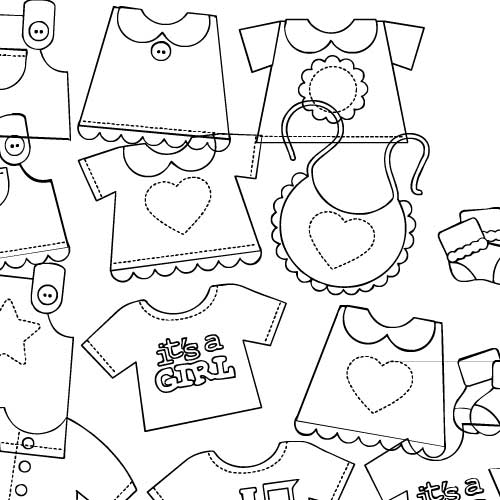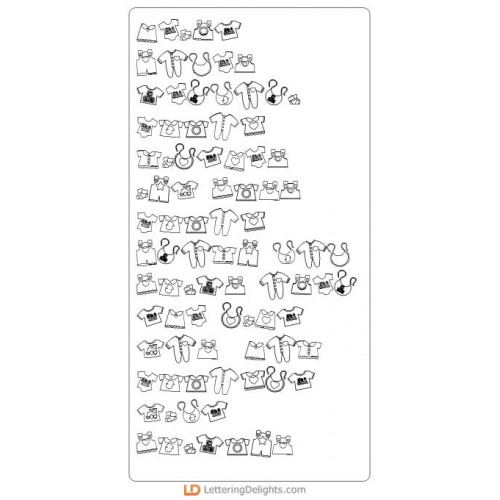
DB Sweet Baby Clothes - DB
Try DoodleBats for your next scrapbook pages or card images. With DB Sweet Baby Clothes, you've got 26 doodles, each corresponding to a letter on the keyboard, and all are about baby! Size them as you would your font sizes and color as easily as changing the font color.